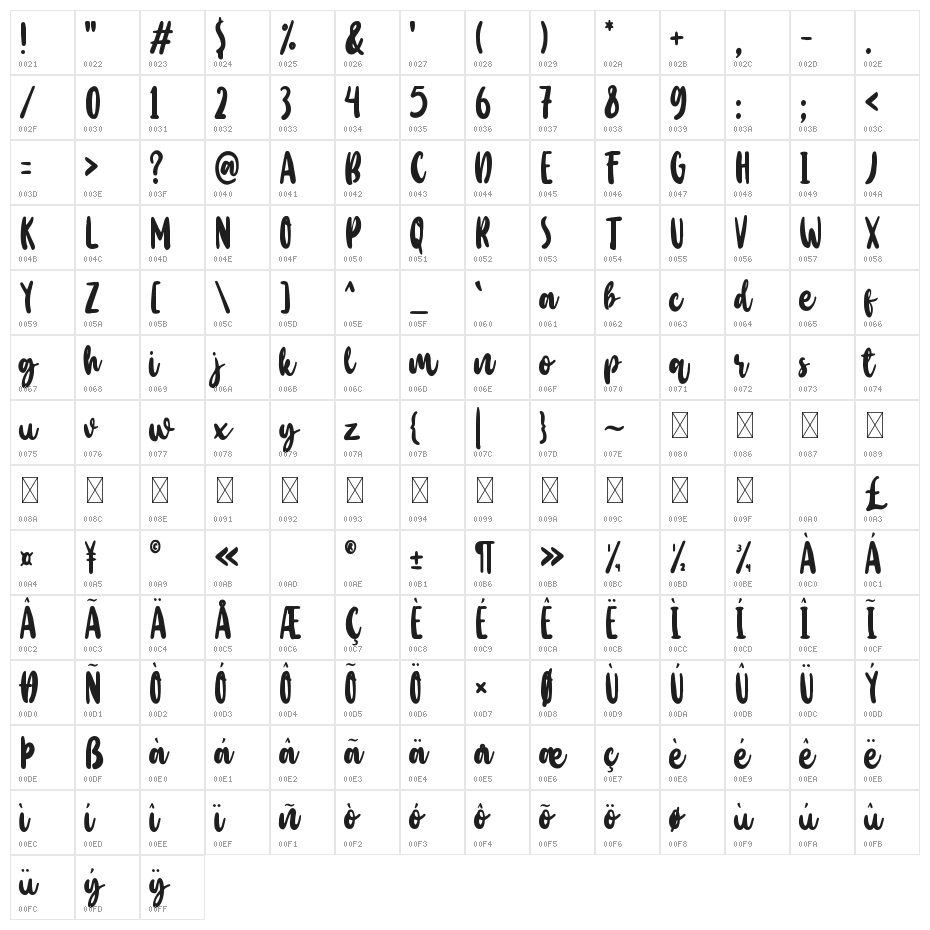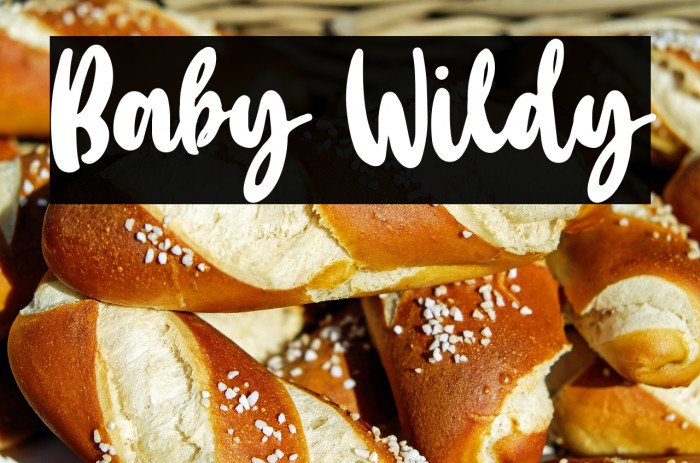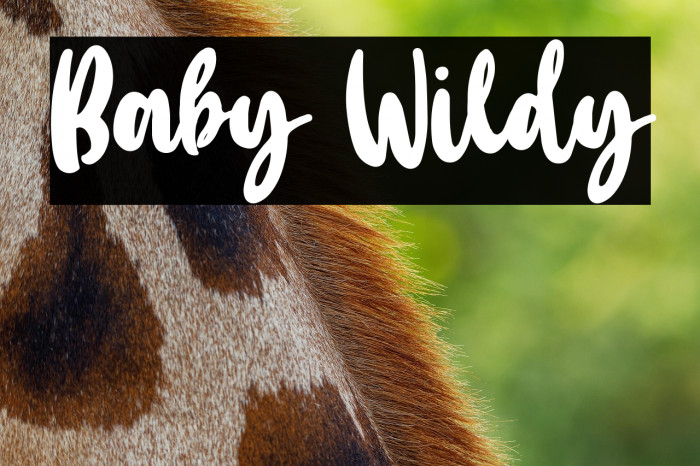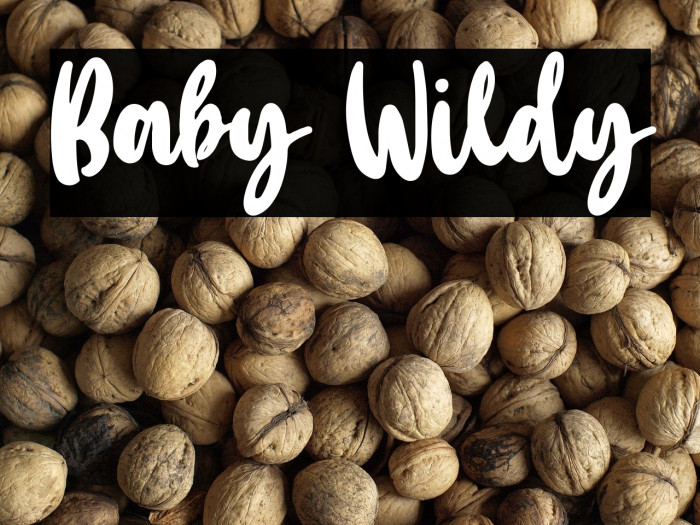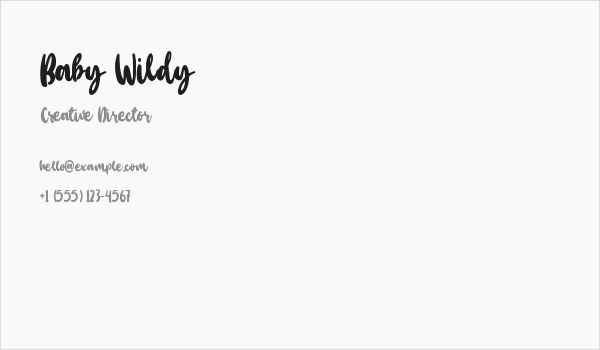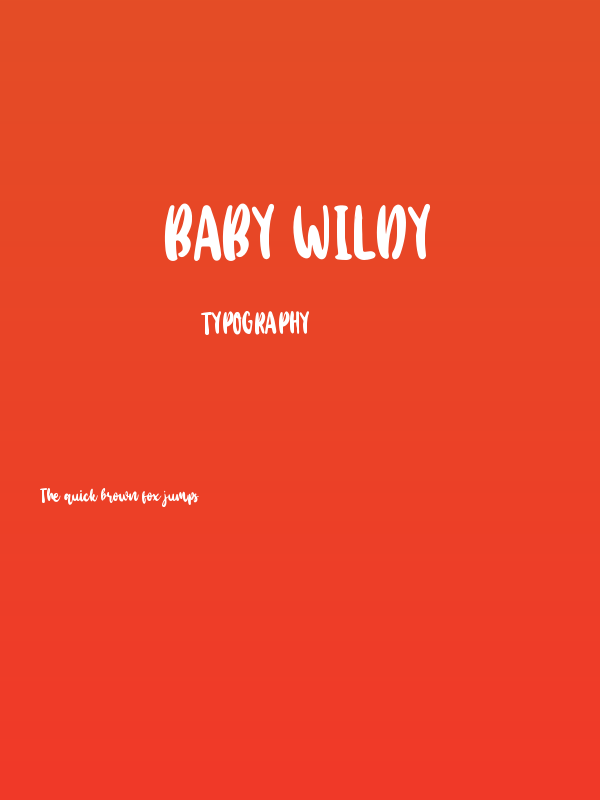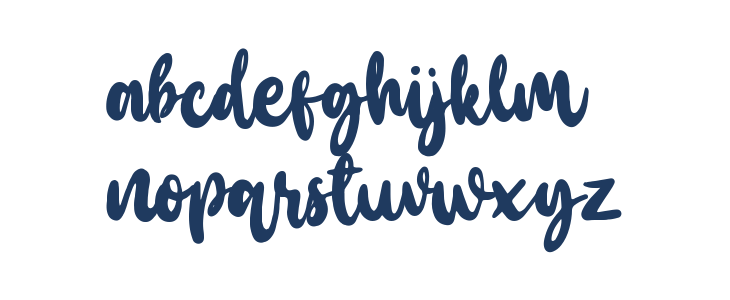
Baby Wildy Font
Baby Wildy Description
This playful and energetic font features bold, hand-drawn characters with a whimsical flair. The uppercase letters are tall and slightly irregular, giving a sense of movement and spontaneity. The lowercase letters have a more cursive style, with smooth, flowing lines that add a touch of elegance. The numbers and special characters maintain the same lively aesthetic, making the font versatile for various creative projects. Its thick strokes and rounded edges contribute to a friendly and approachable appearance, perfect for designs that aim to convey warmth and creativity.
| Proposed Projects | Ideal for children's book covers, playful branding, greeting cards, and creative posters. |